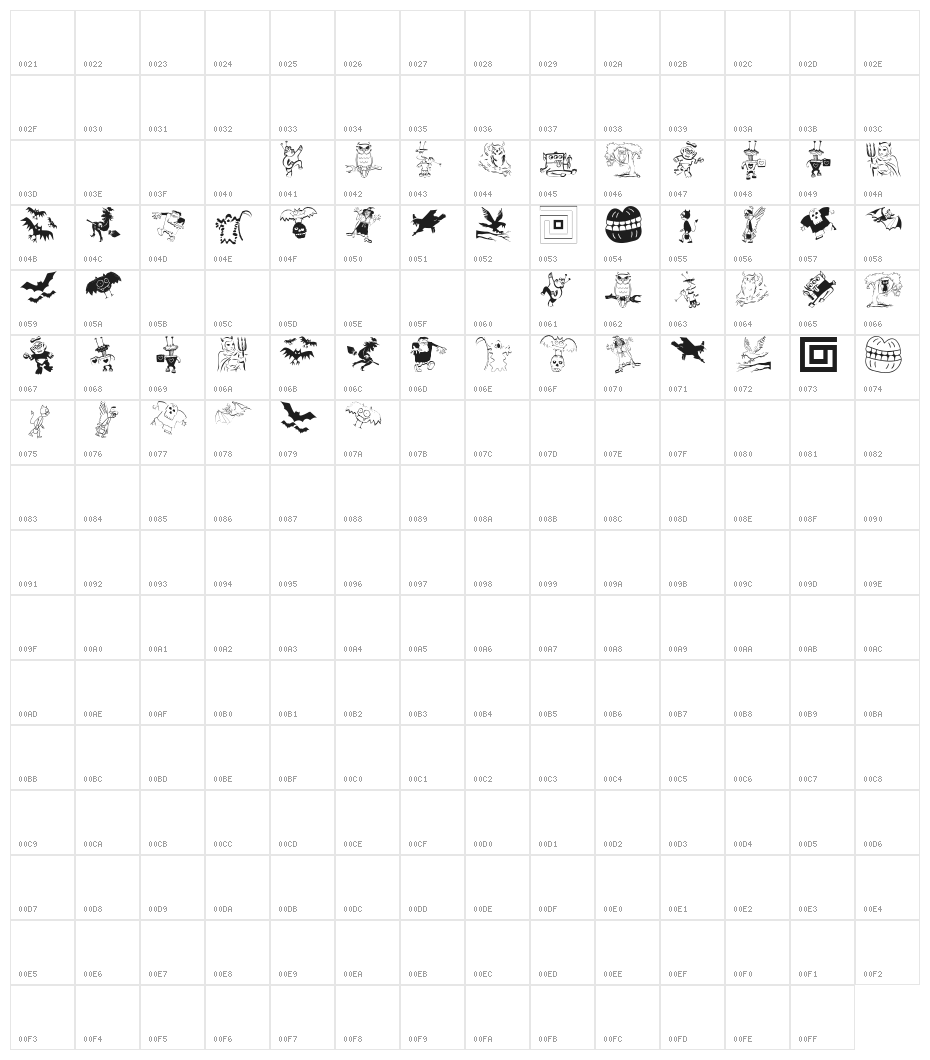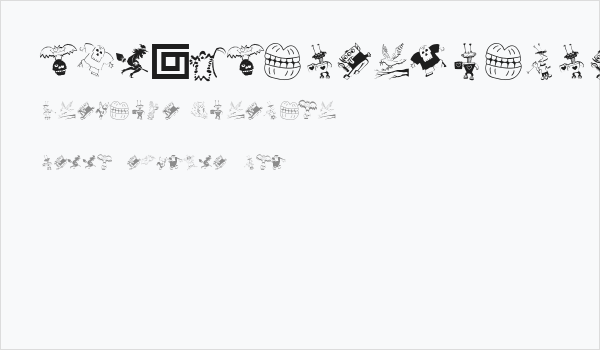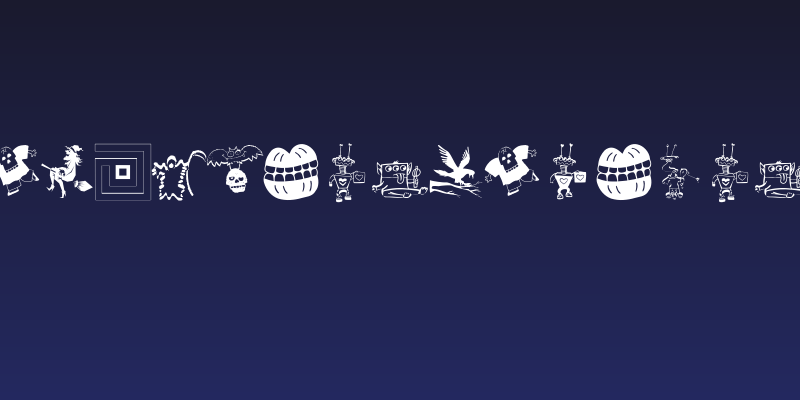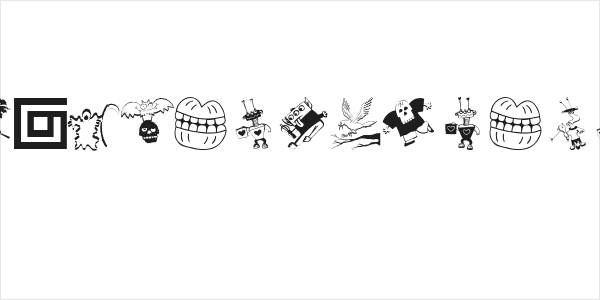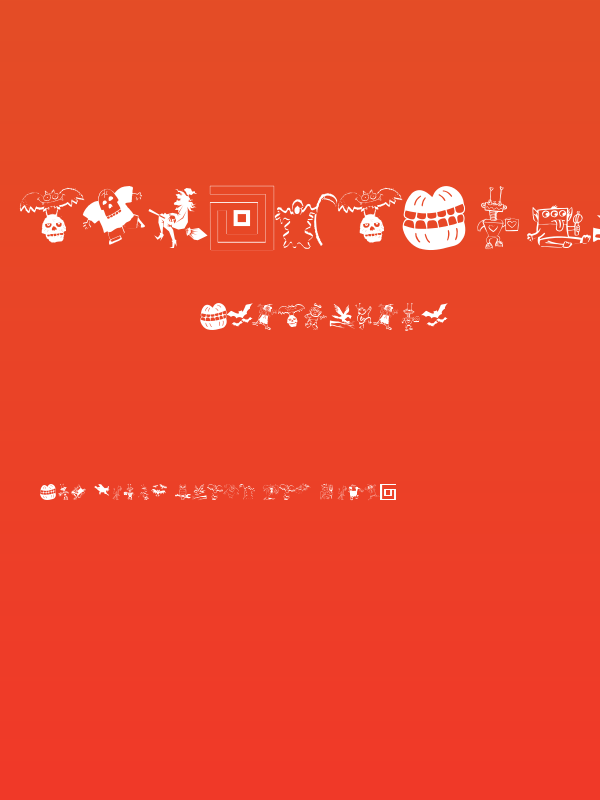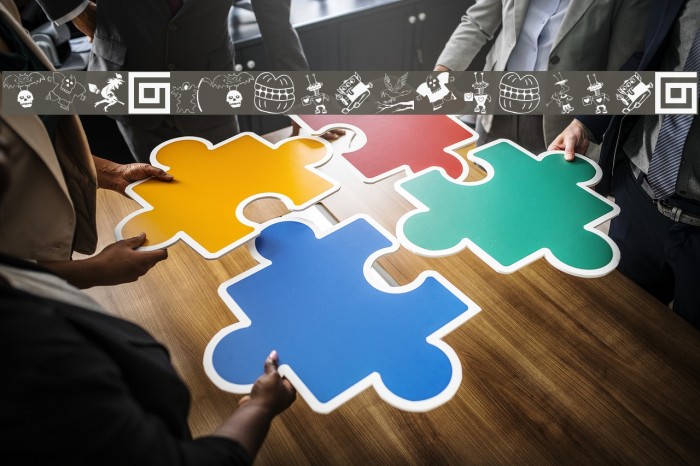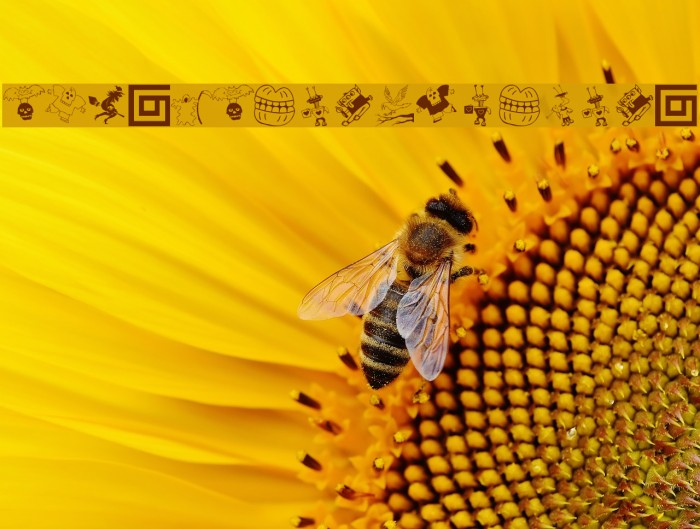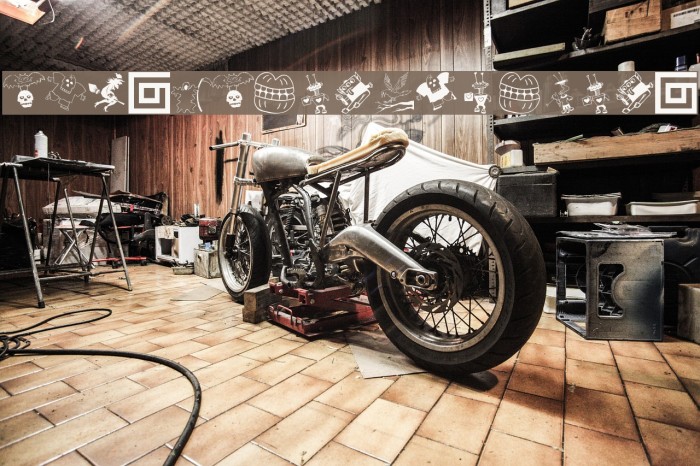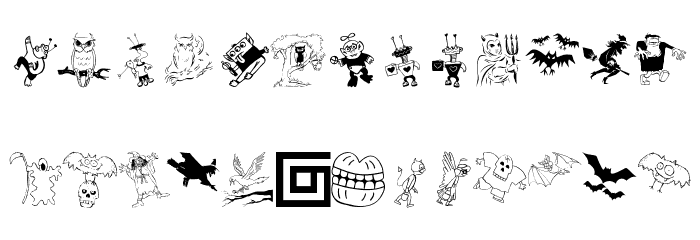
OwlsNOtherWitches Font
| Stile generale | Whimsical, Playful, Thematic |
| Caso d'uso | Headlines, Posters, Themed Graphics |
| Progetti proposti | Halloween party invitations, children's event posters, themed banners, greeting cards, seasonal crafts. |